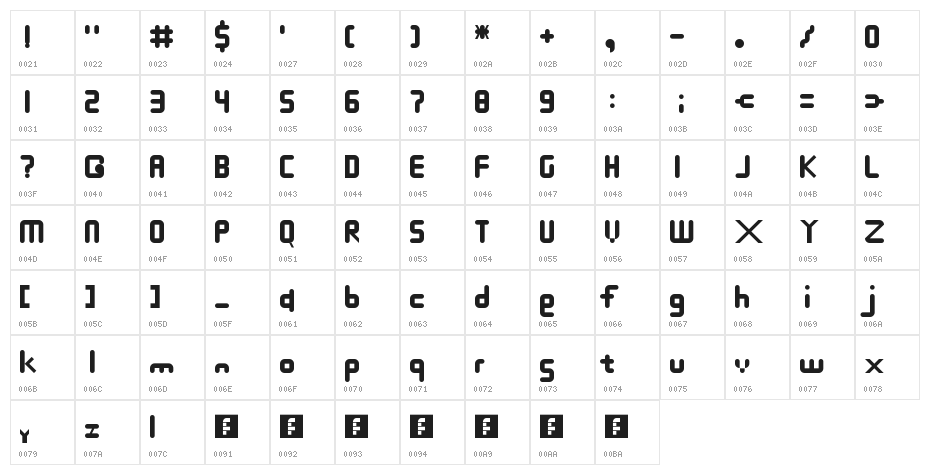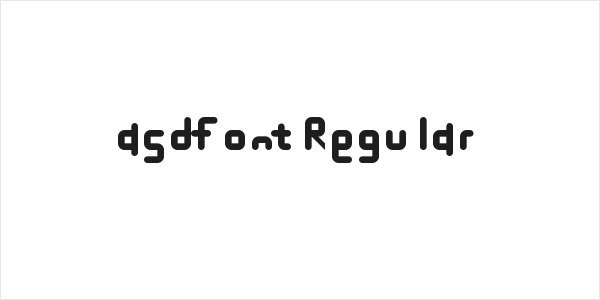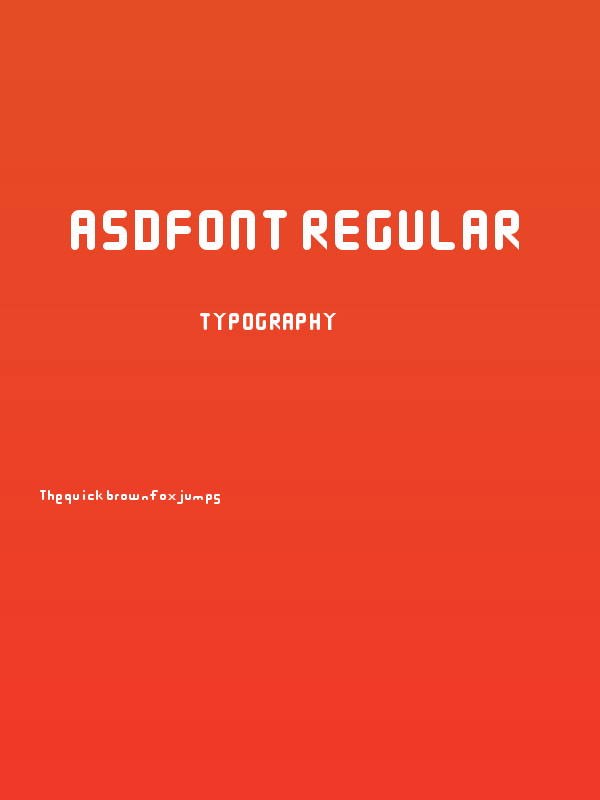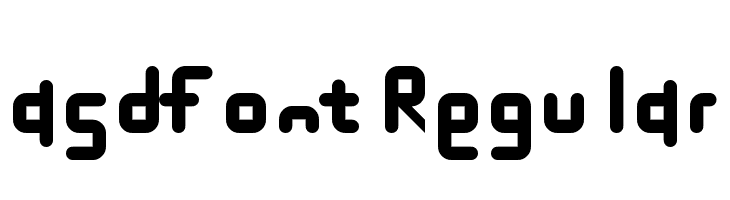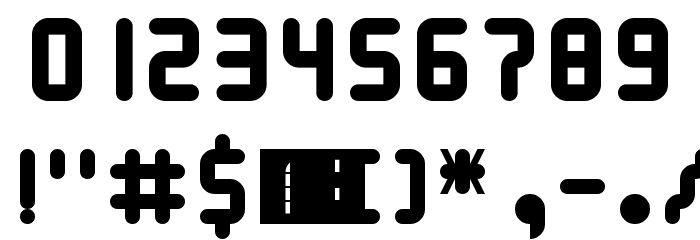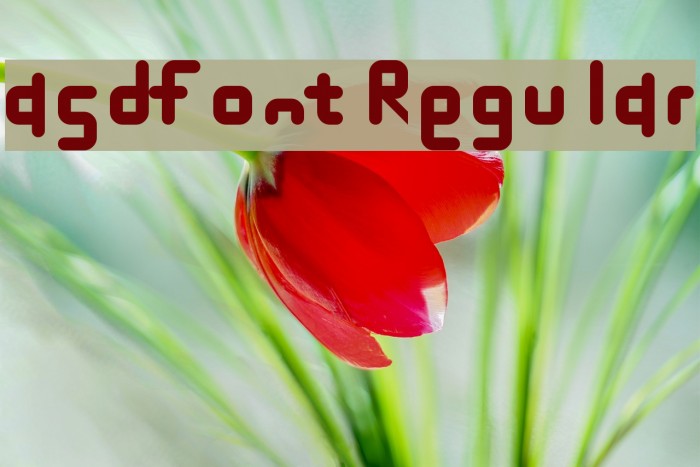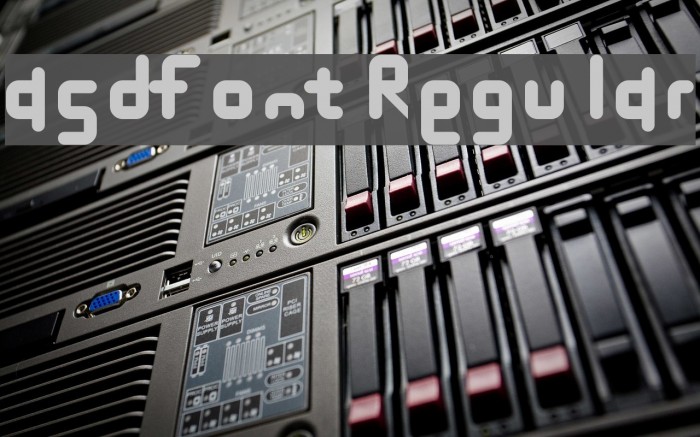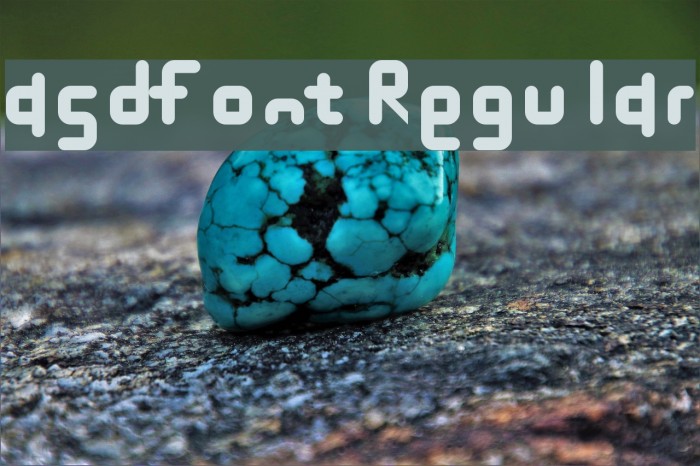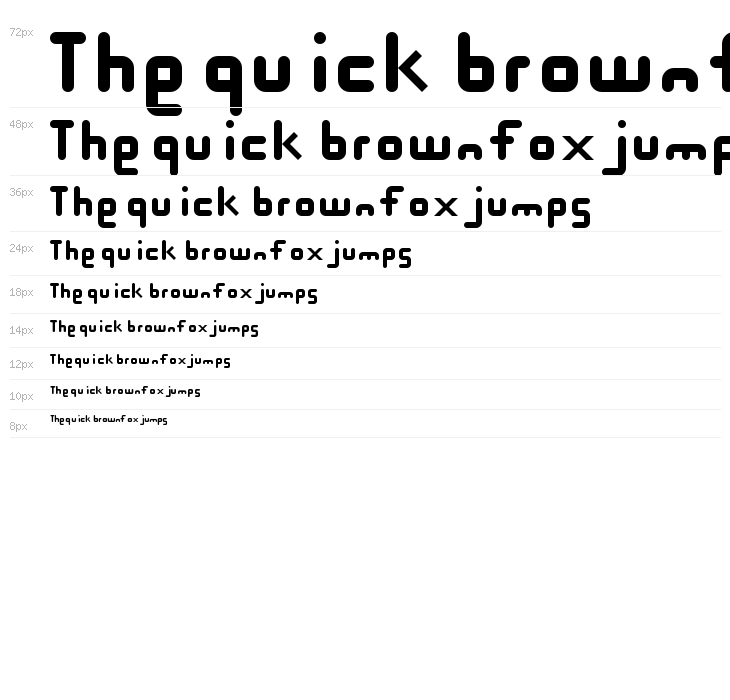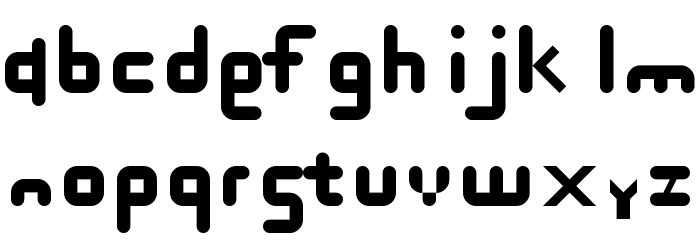
asdfont Regular Font
asdfont Regular Description
This font features a bold, rounded style with a modern and futuristic aesthetic. The characters are uniformly thick, giving a strong and cohesive appearance. The uppercase letters are distinct with a geometric influence, while the lowercase letters maintain a consistent roundness that complements the overall design. Numbers are equally bold and clear, making them highly legible. Special characters are designed to match the boldness and style of the alphanumeric characters, ensuring a seamless integration across different uses.